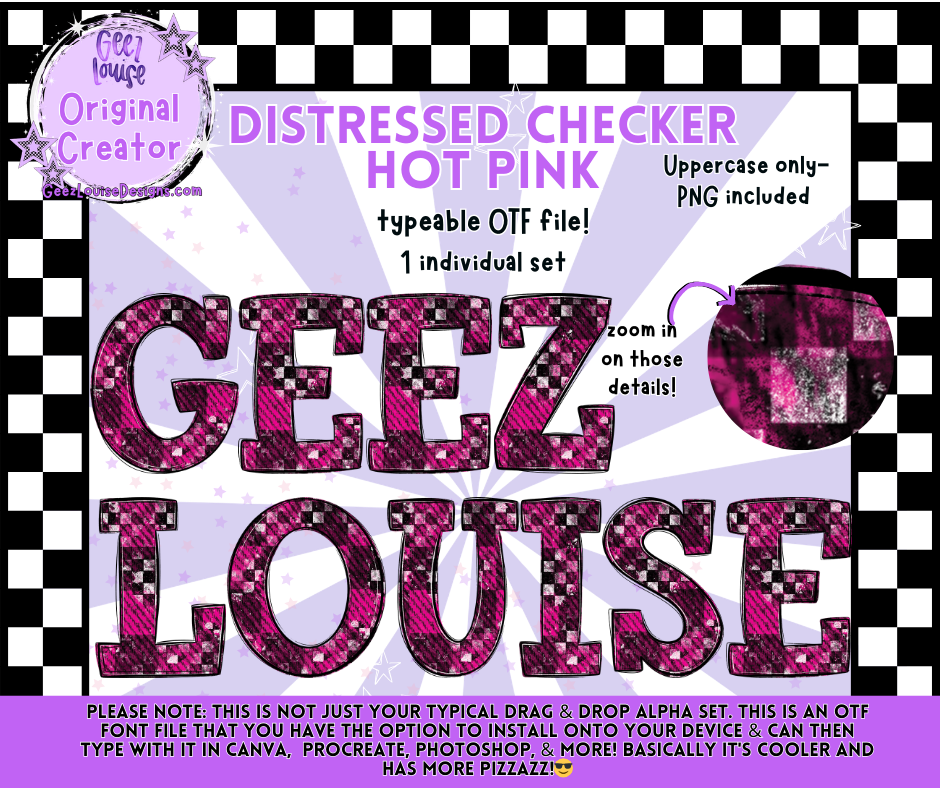
DISTRESSED CHECKER HOT PINK — Typeable OTF Alpha Font + PNGs
Bold, punchy, and unapologetically girly — Distressed Checker Hot Pink brings that perfect mix of grunge and glam. With its worn‑in checkerboard texture and electric pink palette, this typeable OTF font gives your designs instant attitude without sacrificing readability.
Uppercase A–Z
Distressed hot‑pink checker textures
Crisp, print‑ready edges